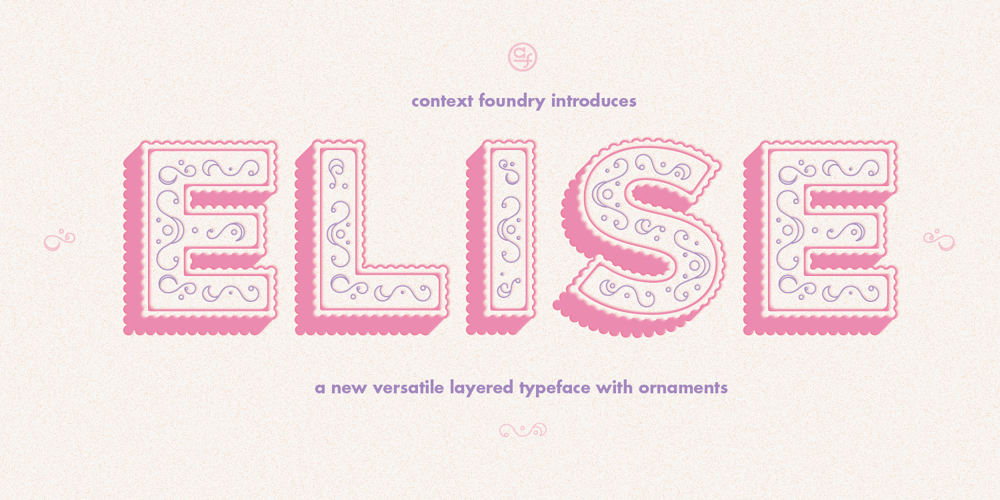
Elise
Elise Font Family was designed by Alex Liebold and published by Context. Elise contains 6 styles and family package options. Elise is a sweet natured, layered display typeface, with a few layers but a wealth of options. From the feminine to the fun to the nostalgic, Elise is a capable and personable set. Best used BIG and with color, you’ll always find an occasion for Elise’s charm. To use this typeface, once you have your copy in place in the design program of your choice, copy your text block and paste it directly on top of your existing text block. Set this new text block to a different Elise layer and voila! You’ll already start to see some interesting effects take place. In some cases, different effects are achieved by bringing The Elise Ribbed layer to the front or to the back. Also available is a free ornament set to get you started.